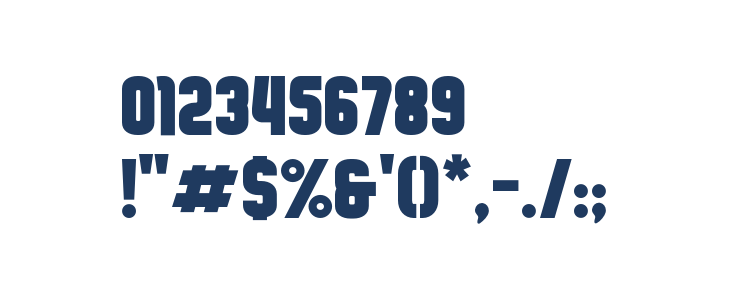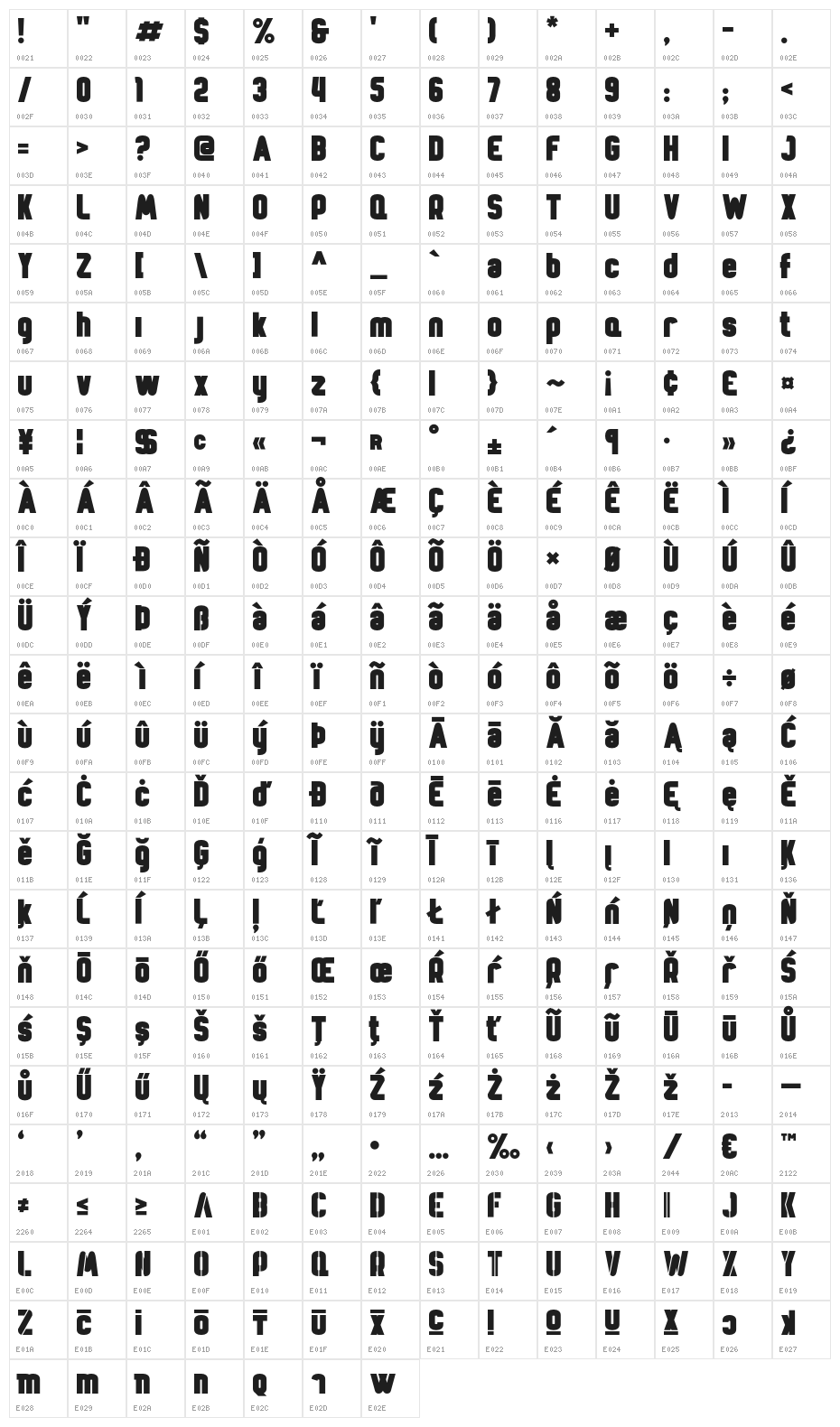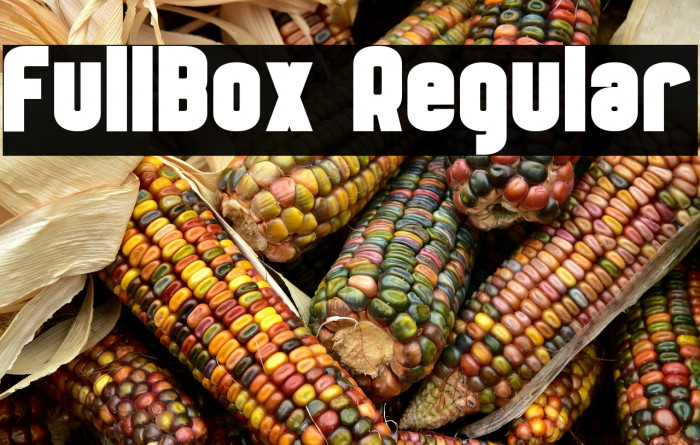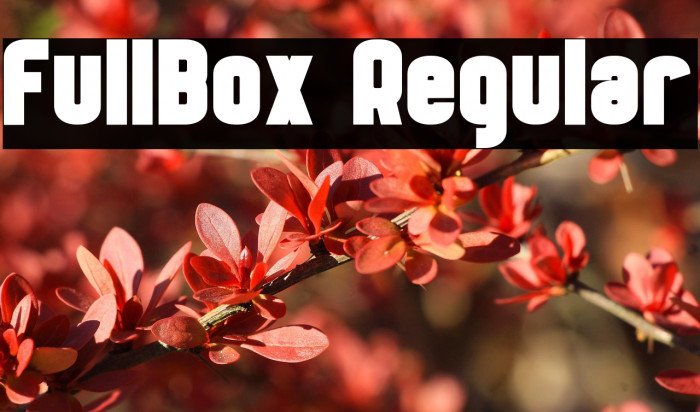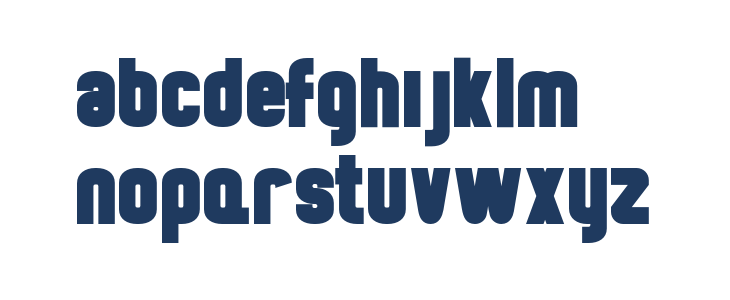
FullBox Regular Font
FullBox Regular Description
This font features bold, blocky characters with a strong presence, making it ideal for attention-grabbing designs. The uppercase and lowercase letters maintain a consistent width, contributing to a uniform appearance. The numerals and special characters are equally robust, ensuring legibility across various applications. The overall design is modern and impactful, with a slight retro feel due to its geometric shapes and solid structure. This font is well-suited for projects that require a bold statement, such as posters, headlines, and branding materials.
| Proposed Projects | Ideal for posters, headlines, branding, and any design needing a strong visual impact. |